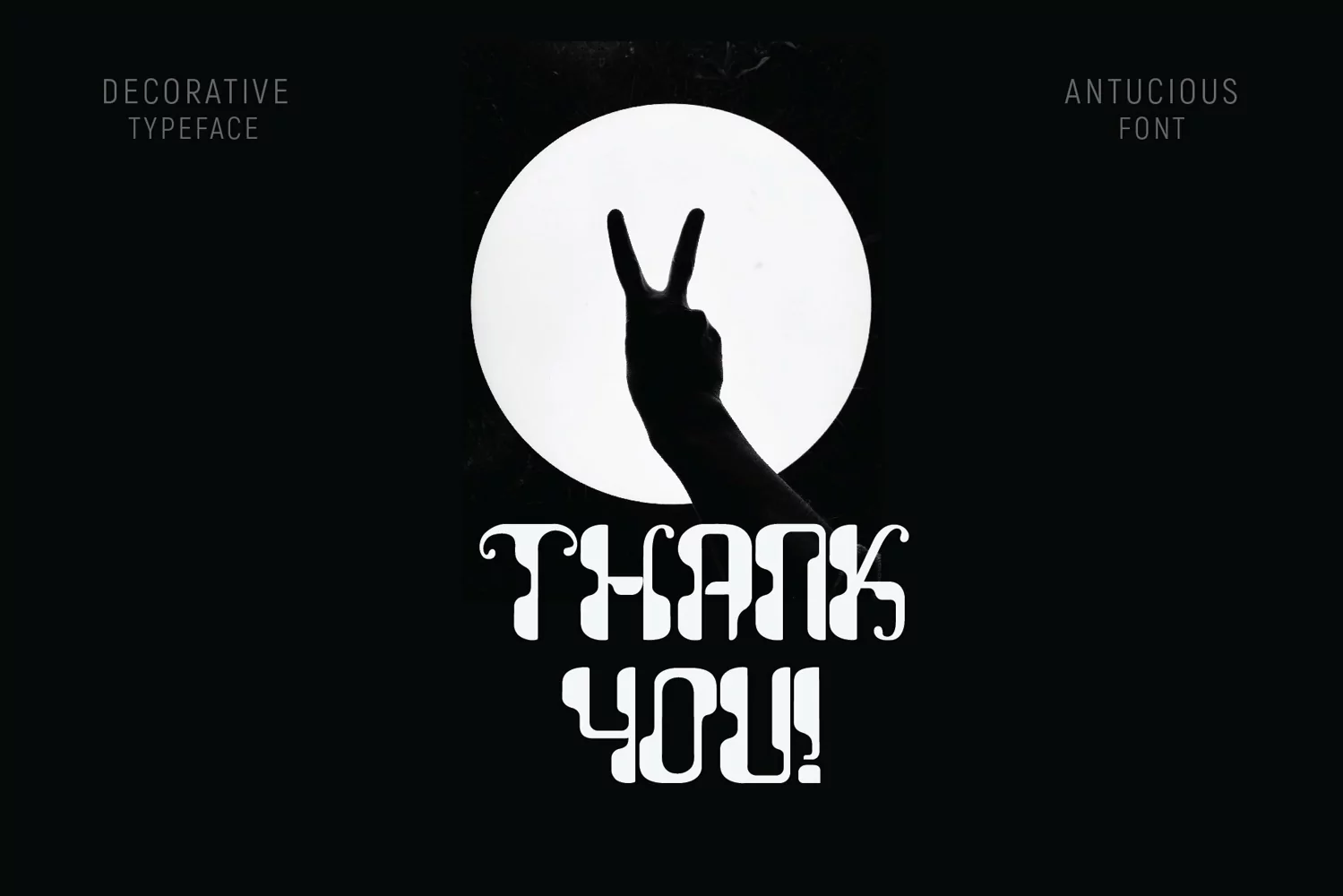
Antucious
**Antucious Font**
This pair was inspired by the retro movie poster design that i saw on some coffee shop, It was crafted by hand specially to add natural handmade feeling in its brand identity than i make it clean with pentool.
Antucious font has 170 character set included
Antucious Font is very good looking in logo,movie poster design, youtube tumbnail, labels, product packaging, invitations, advertising and others.